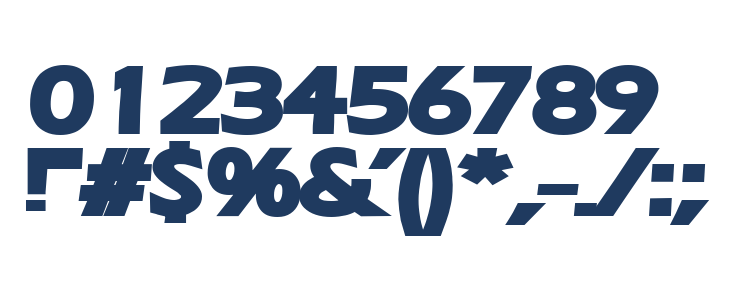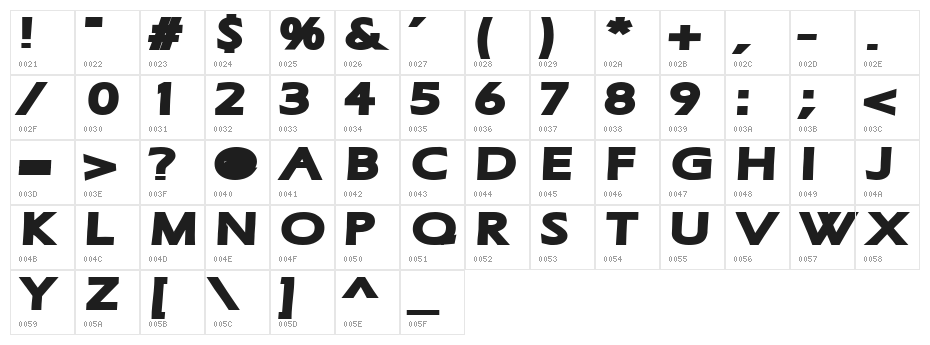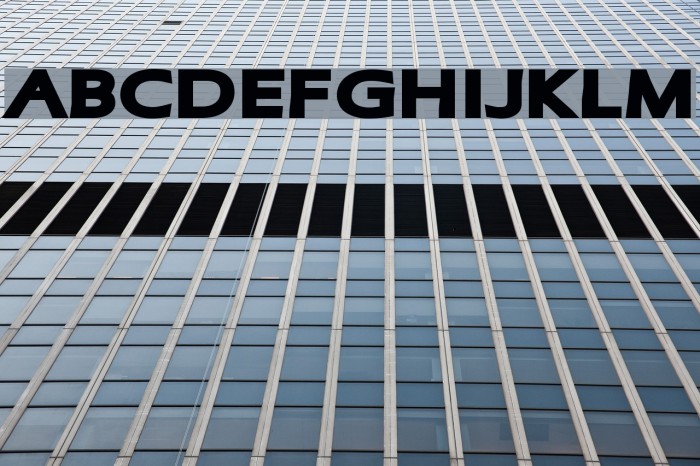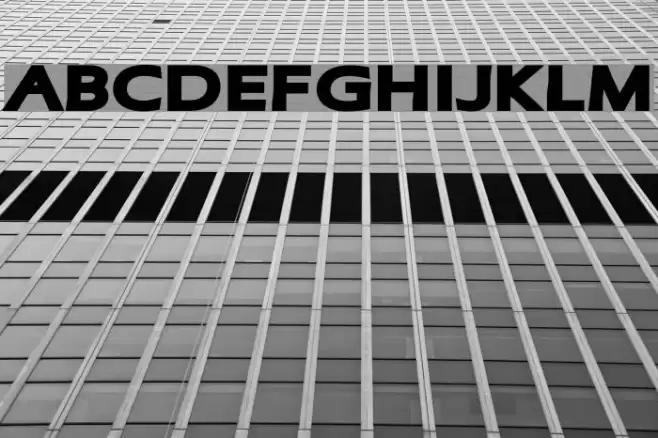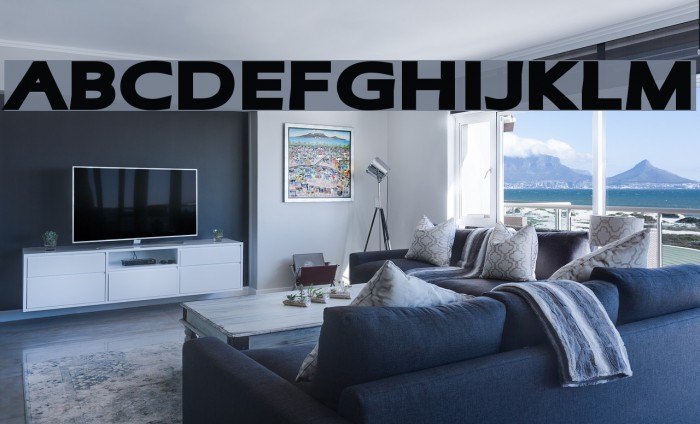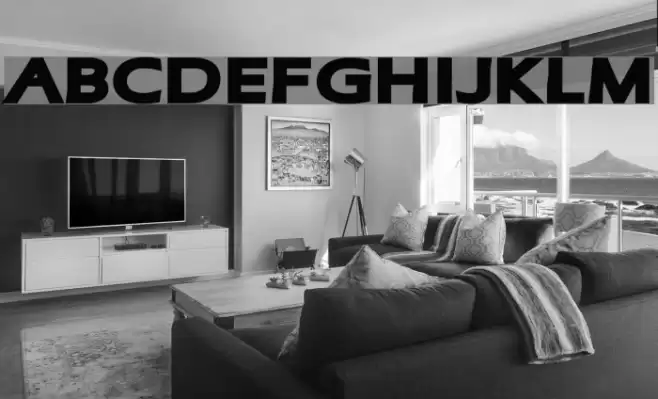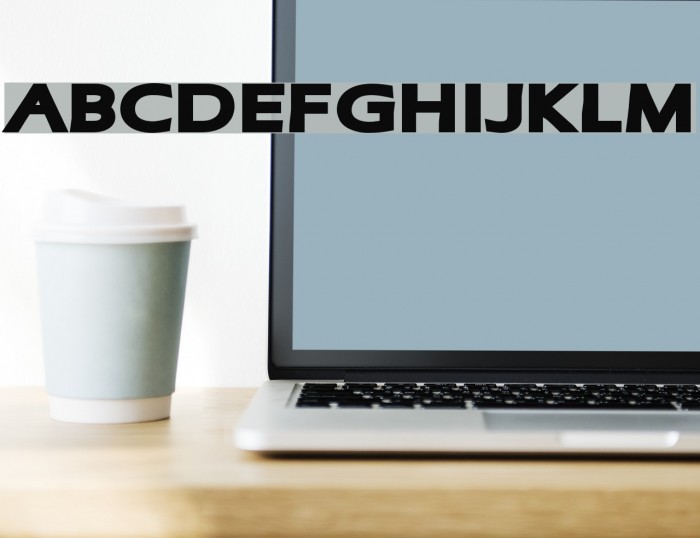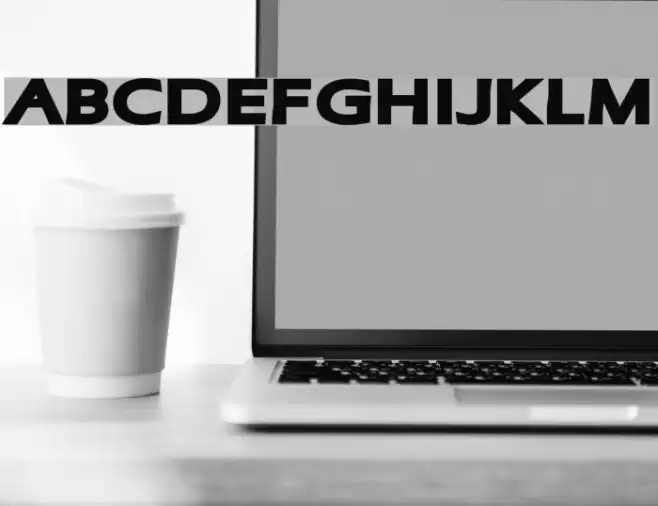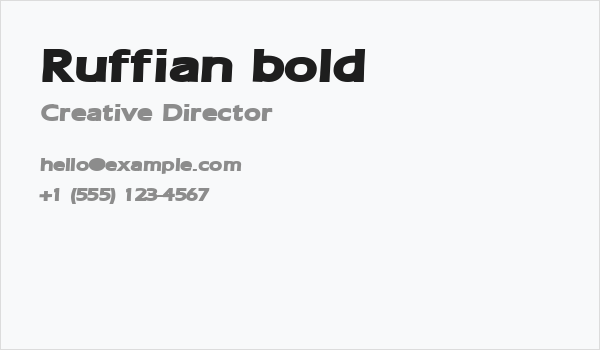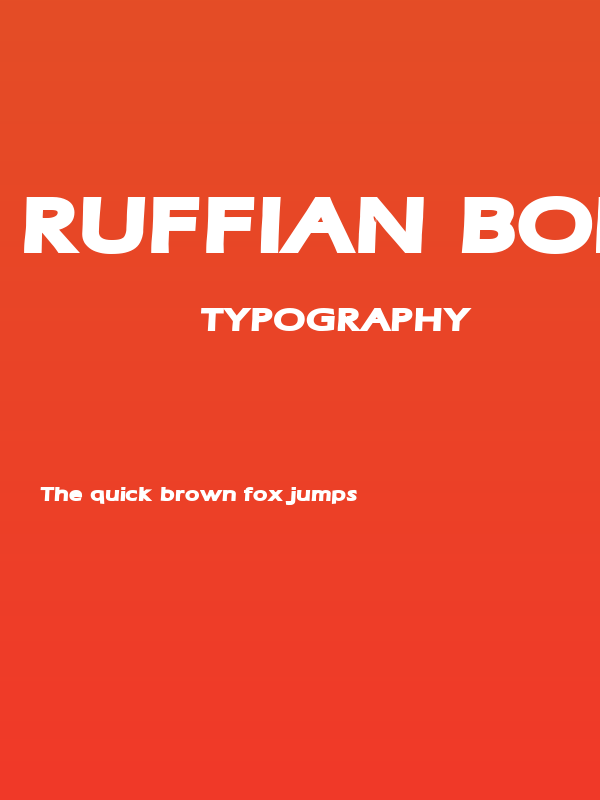
Ruffian bold Font
Ruffian bold Description
This font features a bold and assertive style with thick, uniform strokes that convey strength and impact. The uppercase letters are robust and slightly condensed, giving a compact and powerful appearance. The lowercase letters maintain a consistent weight, ensuring readability while preserving the bold aesthetic. The numerals are equally bold, providing a cohesive look across all characters. Special characters are designed with the same thickness, ensuring they stand out effectively. This font is ideal for making strong visual statements.
| Proposed Projects | Ideal for headlines, posters, branding materials, and any design requiring a strong visual impact. |